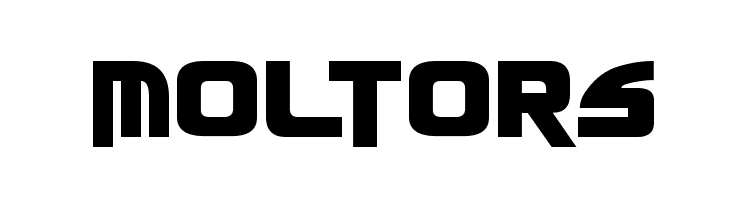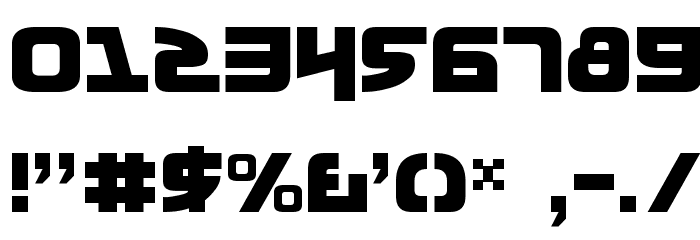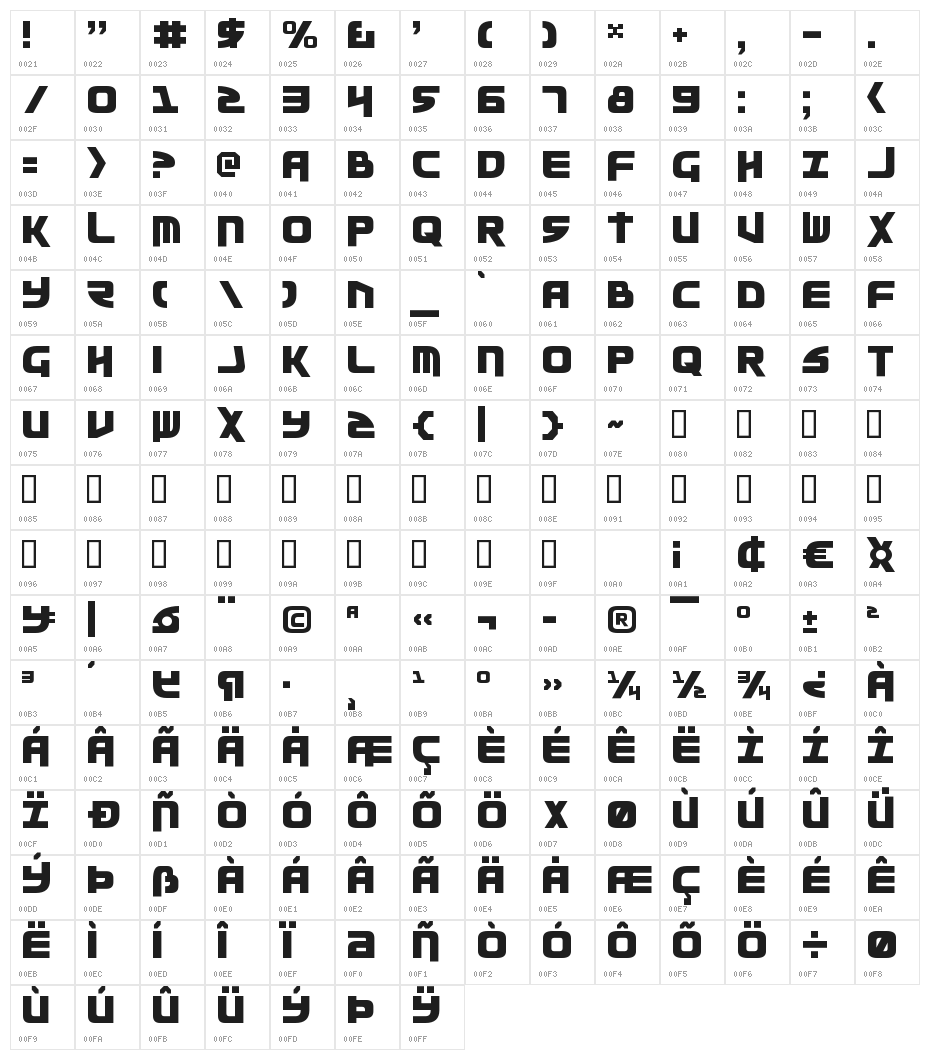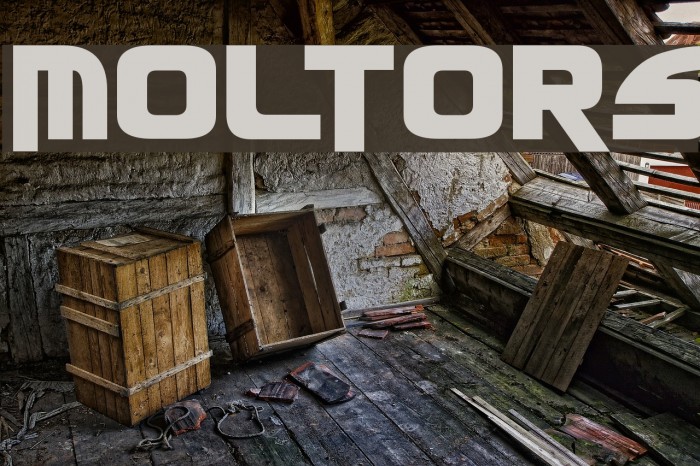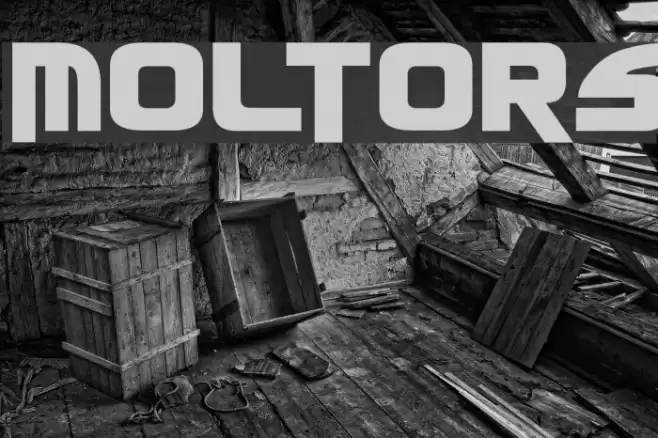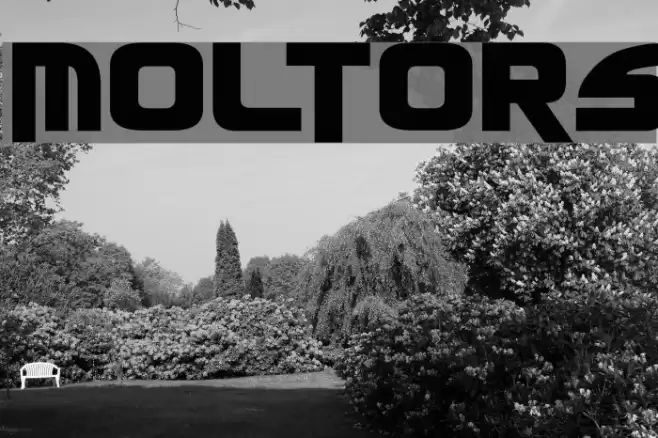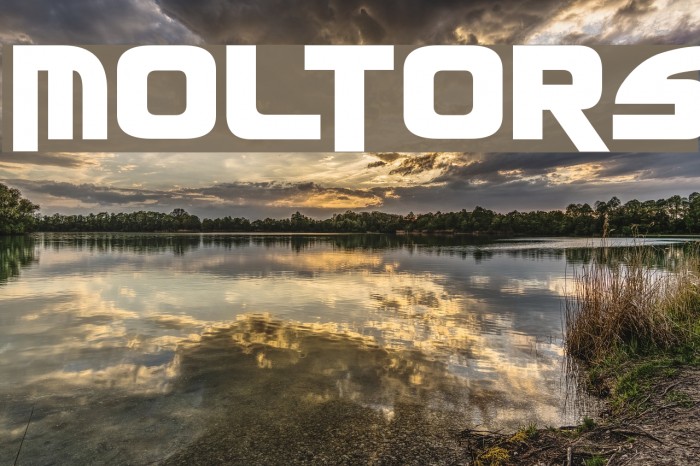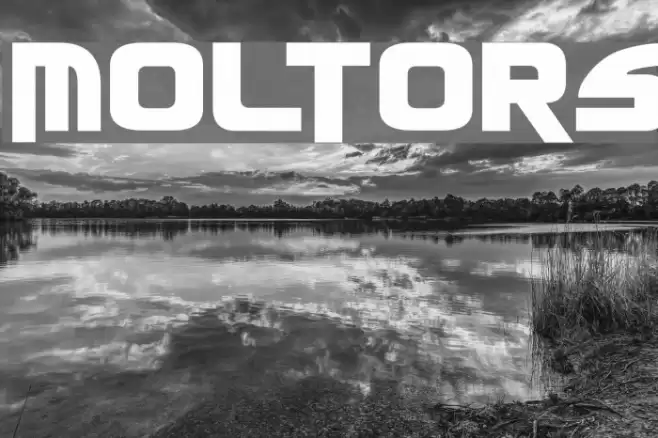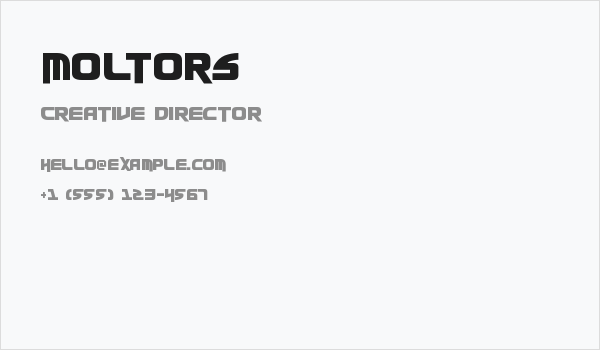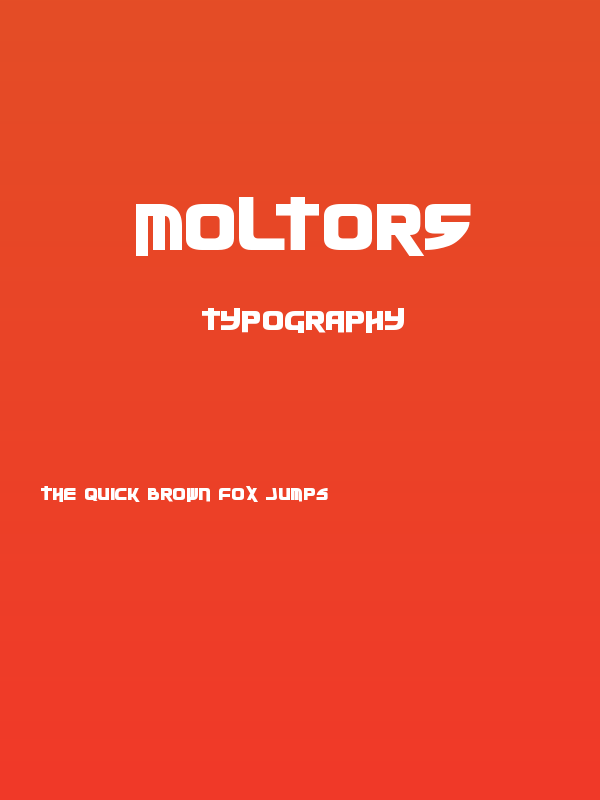
Moltors Font
Moltors Description
This font features a bold and geometric design with a futuristic flair. The characters are constructed with strong, angular lines and a consistent thickness throughout, giving it a robust and impactful appearance. The uppercase and lowercase letters maintain a uniform style, with some characters exhibiting unique, stylized elements such as the curved tail on the 'Q' and the angular cut on the 'S'. Numbers and special characters follow the same design principles, ensuring a cohesive look across all glyphs. The font's solid structure and modern aesthetic make it suitable for projects that require a strong visual presence.
| Proposed Projects | Ideal for technology branding, sci-fi themed posters, video game titles, and modern advertising campaigns. |